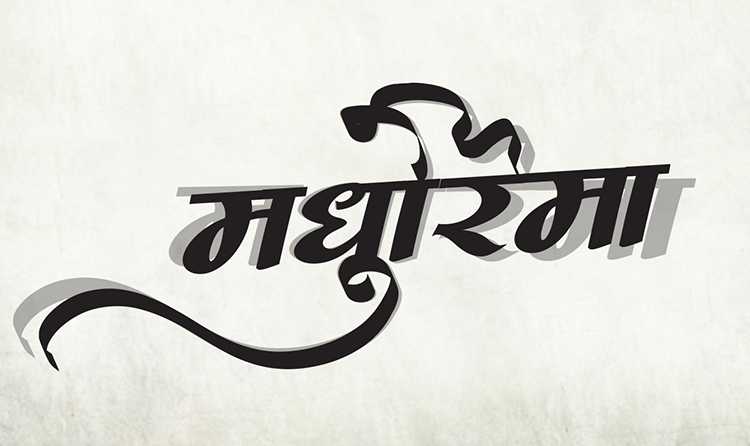
AMS Manoja
AMS Manoja font free download: Elevate your designs with AMS Manoja, a mesmerizing calligraphy font that exudes elegance and style. This font blends traditional calligraphic elements with a modern twist, making it ideal for designers seeking a stylish Hindi font or a captivating calligraphy font.
About AMS Manoja Font
AMS Manoja font free download: Elevate your designs with AMS Manoja, a mesmerizing calligraphy font that exudes elegance and style. This font blends traditional calligraphic elements with a modern twist, making it ideal for designers seeking a stylish Hindi font or a captivating calligraphy font. This calligraphy font combines elegance with functionality, making it perfect for various design applications.
AMS Manoja is a professionally crafted calligraphy typeface that brings clarity and style to your projects. Designed with attention to detail, it supports hindi and marathi characters flawlessly.
Whether you're working on wedding-materials, logos, posters, or other creative projects, AMS Manoja delivers consistent performance across both digital and print media. This carefully designed typeface ensures readability and visual appeal in all your design work.
About AMS Manoja Typography Style
AMS Manoja is a professionally crafted calligraphy font that exemplifies modern Hindi typography design. This free font is perfect for designers seeking professional branding and logo design projects.
Available in 1 weight and supporting hindi, marathi scripts, AMS Manoja offers exceptional versatility for both digital and print media. Whether you're working on wedding-materials, logos, posters, this carefully designed typeface ensures consistent quality and professional results across all your typography projects.